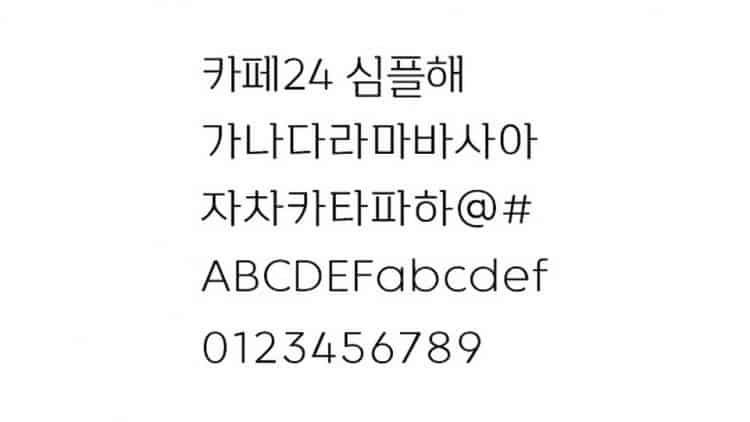
Simplehae Sans Serif Font
Simplehae Sans Serif Font is a humanist sans typeface, created to bring a fun and warm spirit into a minimalistic design. Featuring a large x-height and open counters, it’s clear and legible in both print and screen environments. The typeface is designed to be flexible and adapt to any typographic hierarchy a designer will need. Simplehae works best in editorial, web branding and advertising – and is ready to be challenged by you.